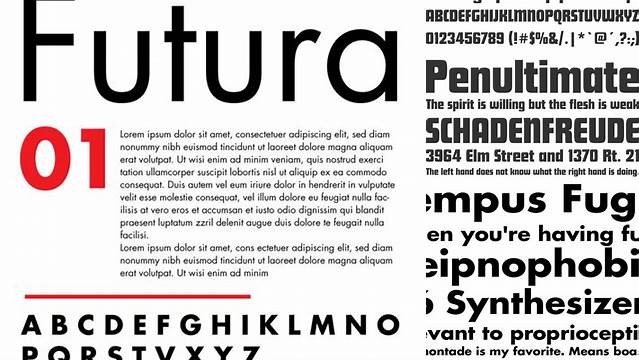
Hey guys, are you on the hunt for the perfect font to give your projects a sleek, modern vibe? Look no further than Futura Std Display and Press Font! It's a timeless classic, known for its clean lines and geometric shapes, making it a go-to choice for designers and creatives worldwide. In this comprehensive guide, we'll dive deep into everything you need to know about Futura Std, including how to snag a free download, its various uses, and tips on how to make the most of this fantastic font. So, buckle up, and let's explore the world of Futura Std!
Futura Std: A Deep Dive into the Iconic Font
Alright, let's start with the basics. Futura Std Display and Press Font isn't just any font; it's a design legend. Created in 1927 by Paul Renner, Futura was inspired by the Bauhaus design style, which emphasized functionality and clean aesthetics. Its geometric design is based on simple shapes like circles, triangles, and squares, giving it a distinctive and instantly recognizable look. The font's versatility allows it to be used in various applications, from headlines and logos to body text. Its clean and modern appearance makes it an excellent choice for both print and digital media, ensuring that your message is conveyed with clarity and style. Furthermore, the font family offers a wide range of weights and styles, allowing you to customize your designs and achieve the desired visual impact. Whether you're a seasoned designer or a beginner, understanding the nuances of Futura Std is essential for any creative project.
But what makes Futura Std Display and Press Font so special? First off, its neutrality. Unlike fonts with strong personalities, Futura doesn't overshadow the message. It's a chameleon, adapting to the tone and style of your content. It's like the perfect blank canvas for your creativity. Secondly, its legibility. The clean lines and distinct shapes of Futura ensure that it's easy to read, even in smaller sizes. This is crucial for everything from website text to printed brochures. Also, Futura's geometric forms give it a feeling of modernity and sophistication. This is a fantastic font if you want to create a sense of forward-thinking and elegance. Many brands and designers have adopted Futura, including well-known brands such as Volkswagen, Supreme, and Gillette. Futura's history adds to its appeal. Born in the modernist era, it’s a symbol of innovation and progress. When you use Futura, you're connecting to this legacy of design excellence. In short, Futura is more than a font; it's a statement. It's a statement of simplicity, elegance, and timelessness. This is why people are very interested in Futura Std Display and Press Font.
The History and Evolution of Futura Std
Let's take a quick trip back in time, shall we? The story of Futura Std Display and Press Font begins in the late 1920s, in the heart of the modernist movement. Paul Renner, a German typeface designer, was the mastermind behind this iconic font. Inspired by the Bauhaus school of design, Renner sought to create a typeface that embodied the principles of simplicity, functionality, and geometric forms. The result was Futura, a font that would go on to revolutionize typography. The geometric shapes and clean lines of Futura made it instantly recognizable. It was a stark contrast to the ornate and often cluttered typefaces that were prevalent at the time. Futura quickly gained popularity among designers, architects, and artists. It was embraced for its modern aesthetic and its ability to convey a sense of sophistication and clarity.
Over the years, Futura has undergone several revisions and expansions. Different foundries have released their versions of the font, each with slight variations. However, the core principles of Futura have remained consistent. Today, Futura is available in a wide range of weights and styles, allowing designers to tailor the font to their specific needs. It continues to be a popular choice for branding, advertising, and editorial design. Its timeless appeal and versatility ensure that it will remain a design staple for years to come. From its humble beginnings in the modernist era to its current status as a global design icon, the journey of Futura is a testament to the power of good design. This font has seen an incredible amount of change! Now, the question is how to get Futura Std Display and Press Font!
Futura Std vs. Other Fonts: A Comparison
Let's put Futura Std Display and Press Font up against the competition, shall we? When it comes to the world of fonts, there are countless options, each with its own unique characteristics and applications. But how does Futura stack up against the giants like Helvetica or the more artistic fonts? Futura, with its geometric design, stands out for its clean and modern aesthetic. It's a great option for headlines, logos, and branding materials. Helvetica, on the other hand, is another popular sans-serif font, but it has a slightly different feel. It is known for its neutrality and versatility. It's a solid choice for body text and general design use. The choice between Futura and Helvetica often comes down to personal preference and the specific requirements of the project.
Compared to more decorative fonts, Futura has a very different role. Fonts such as these have a strong personality and can be used to add a touch of elegance or whimsy to a design. However, they're often less legible and may not be suitable for body text. Futura, with its clean lines and high legibility, is a much safer choice for projects that require clarity and readability. And what about serif fonts? Serif fonts such as Times New Roman have small strokes, which can add a traditional or formal feel to a design. While Futura is a sans-serif font, it is completely different. Ultimately, the best font depends on your design goals. If you want a clean, modern, and versatile font, Futura is a fantastic choice. If you're looking for a more traditional or decorative font, you might want to consider other options. When considering a font, remember to consider the style, readability, and application of your work. It is one of the reasons why Futura Std Display and Press Font is so popular.